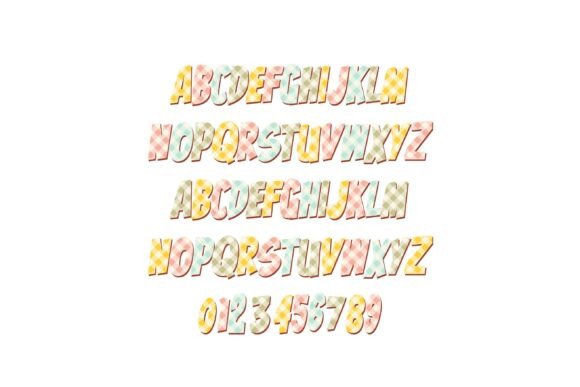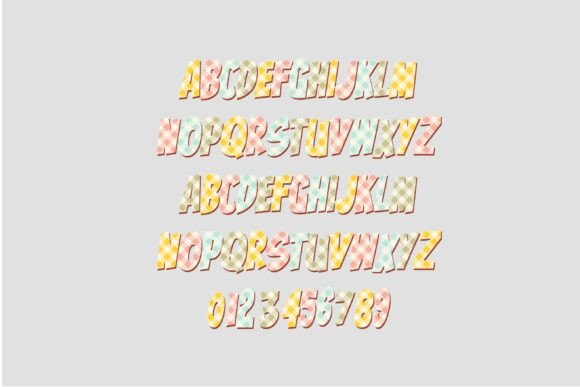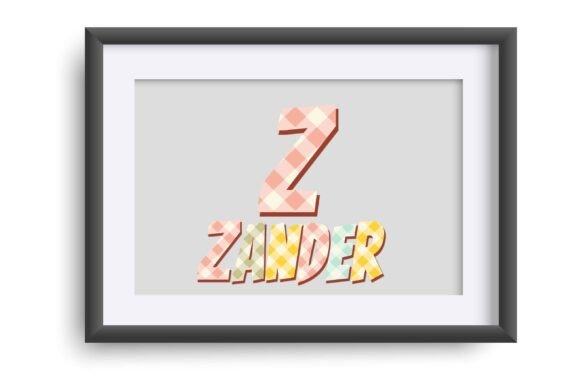
Introduction to Retro Housewife Font
Serve up some mid-century charm with Retro Housewife, a whimsical display typeface that captures a “kitsch-and-kitchen” soul.
This full-color SVG font features bold, slanted letterforms uniquely characterized by an internal texture of rhythmic “gingham check” patterns and a soft pastel palette that bridges the gap between 1950s apron aesthetics and modern boutique branding With its heavy structural weight and nostalgic personality, Retro Housewife is the premier choice for independent vintage cafe identities, boutique home-bakery logos, retro lifestyle blogs, and high-impact “checkered-and-charming” social media headers.
Why Choose Retro Housewife Font?